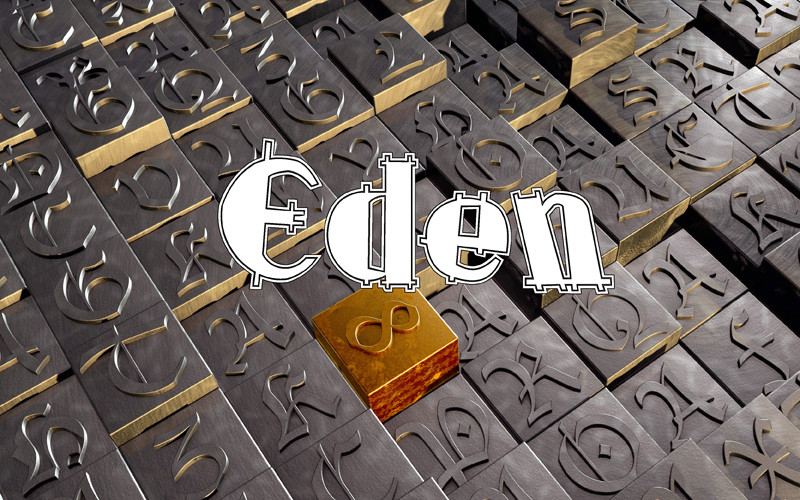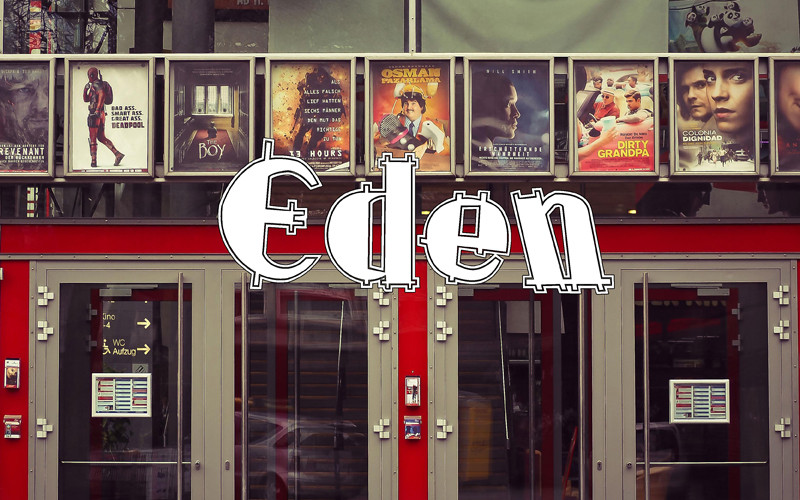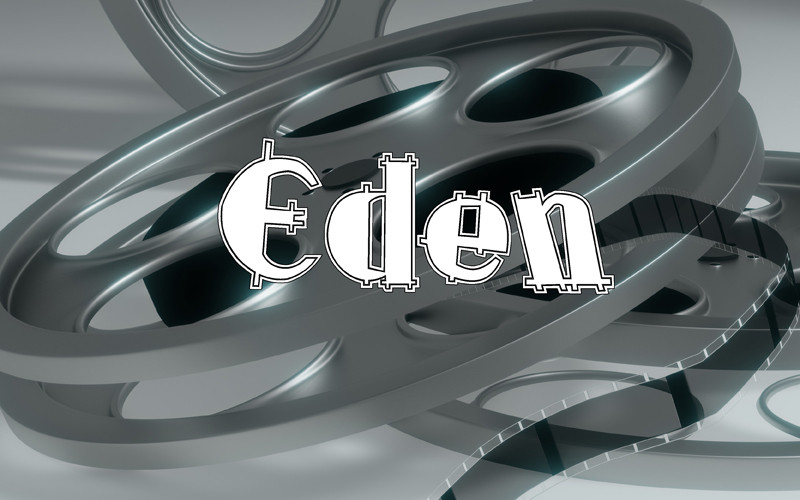
Eden Font
Directly from the film directed by Elia Kazan, starring an unforgettable JAMES DEAN, the new font for all fans of the film.
Direttamente dal film diretto da Elia Kazan, interpretato da un indimenticabile JAMES DEAN, il font inedito per tutti gli estimatori del film.